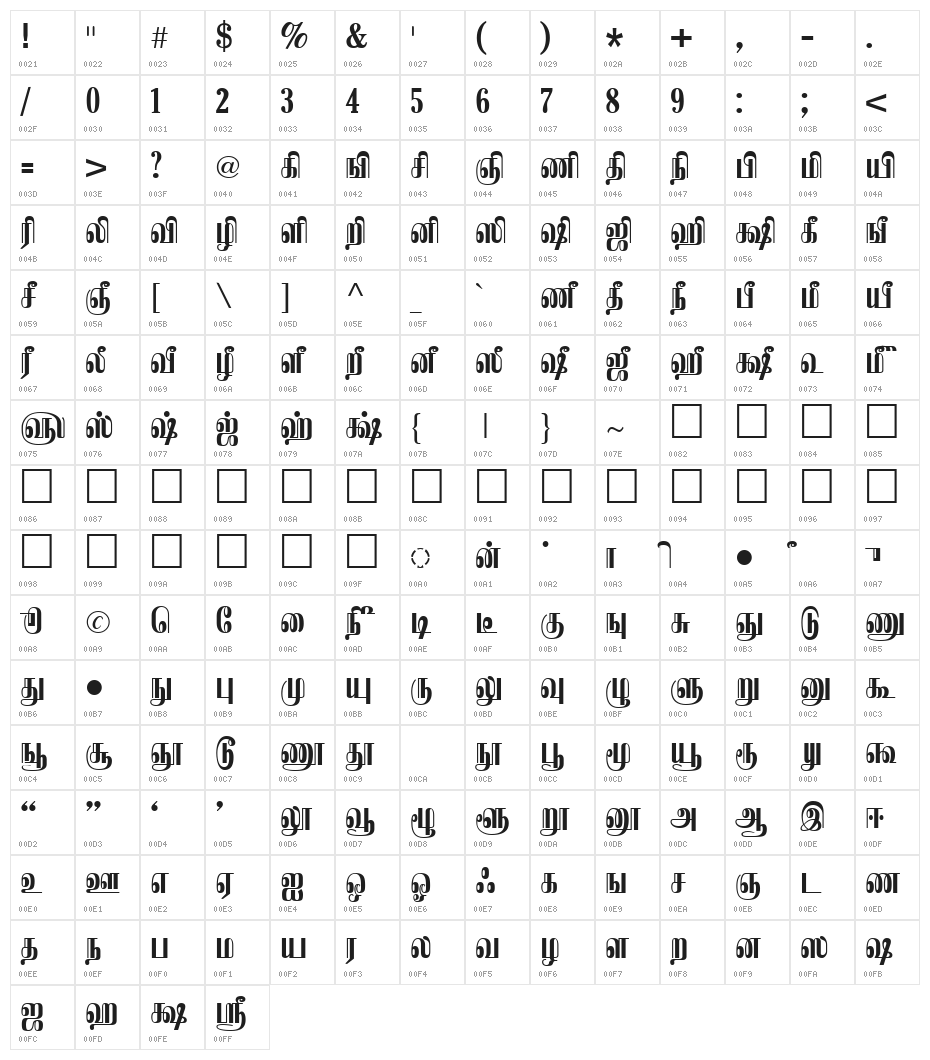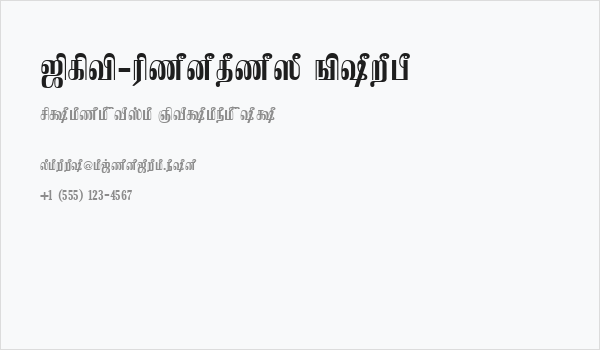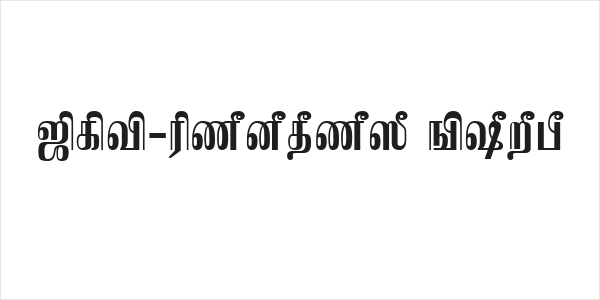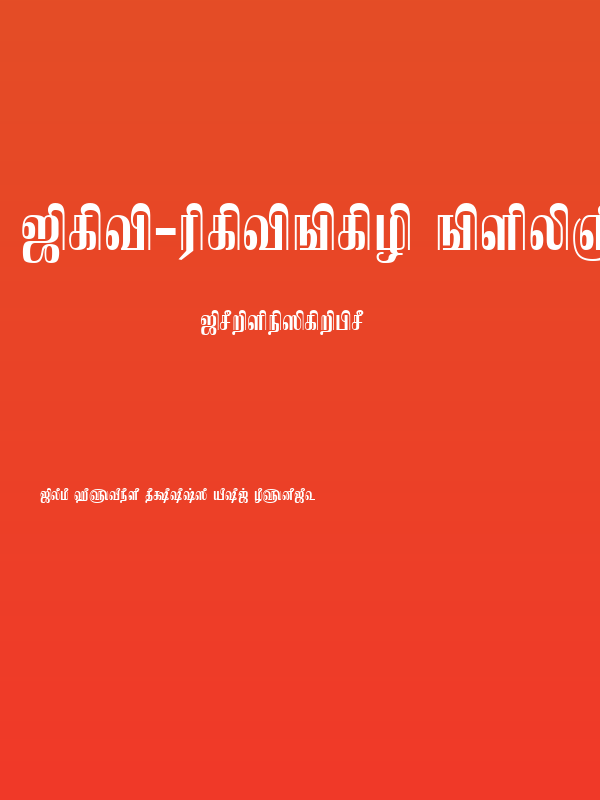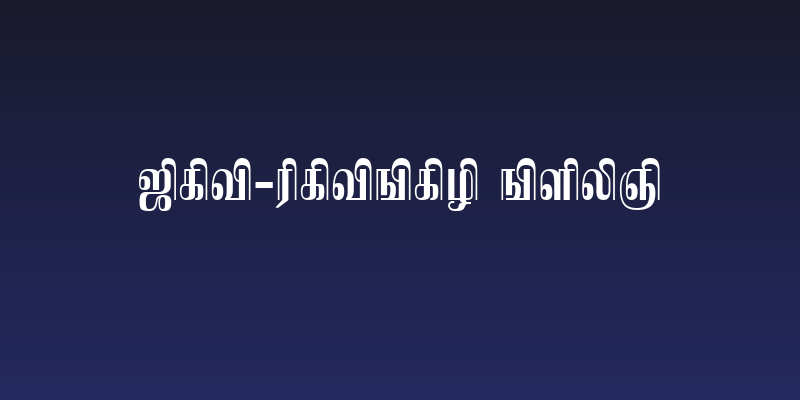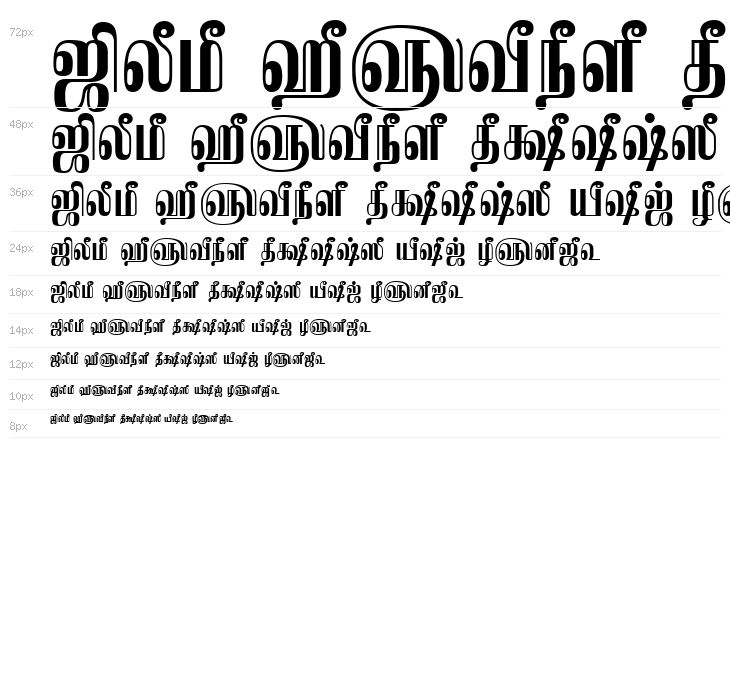
TAM-Kamban Bold Font
TAM-Kamban Bold Description
This font presents a bold and striking appearance, characterized by its thick strokes and prominent serifs. The Tamil script is elegantly crafted, with each character exhibiting a sense of balance and harmony. The numerals and special characters maintain a consistent style, ensuring readability and aesthetic appeal. The font's boldness makes it suitable for attention-grabbing headlines and titles, while its clear structure supports legibility in various contexts. The overall design is both traditional and modern, making it versatile for different applications.
| Overall Style | Traditional, Modern |
| Use Case | Headlines, Titles, Signage |
| Proposed Projects | Ideal for use in print media, signage, branding, and digital content where a strong, traditional presence is desired. |